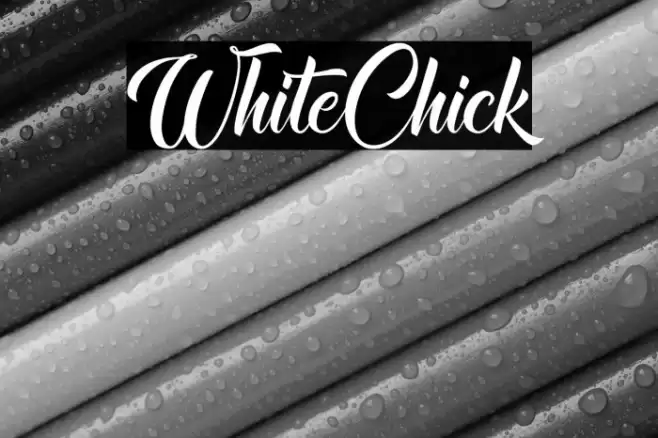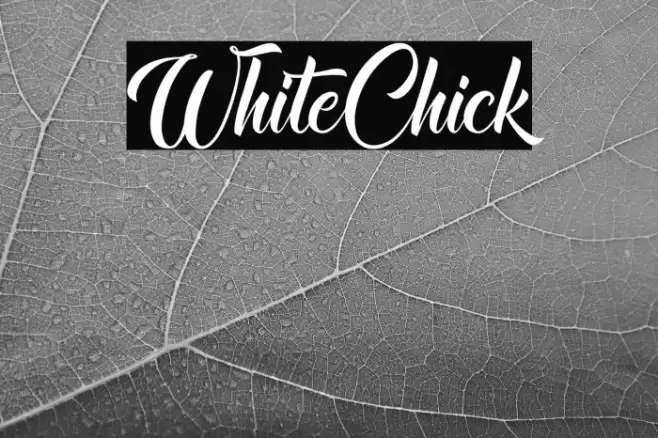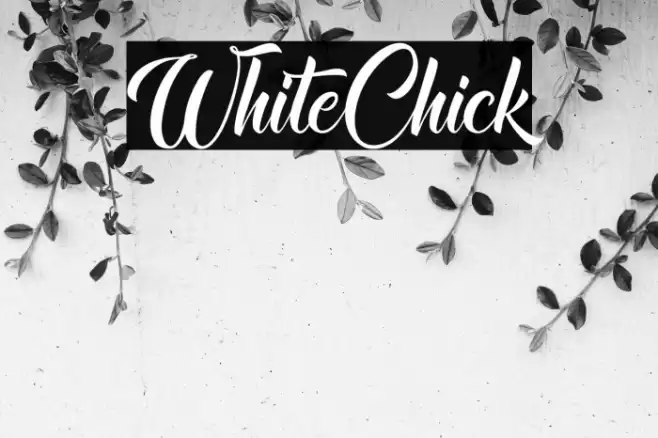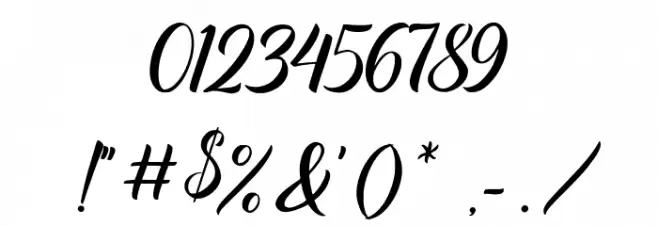
WhiteChick Font
WhiteChick Description
This font features a flowing, elegant script style with a calligraphic influence. The uppercase letters are ornate and have a classic, sophisticated appearance, while the lowercase letters maintain a smooth, connected flow that enhances readability. The numerals are consistent with the script style, offering a cohesive look across all characters. Special characters are designed with the same attention to detail, making them suitable for decorative purposes. The overall design exudes a sense of elegance and formality, making it ideal for projects that require a touch of sophistication.
An elegant, flowing script font with a calligraphic style from Regular fonts.
- Proposed Projects: Wedding invitations, elegant branding, formal event programs, luxury product packaging.
- Overall Style: Classic
- Use Case: Logos, Invitations, Decorative text